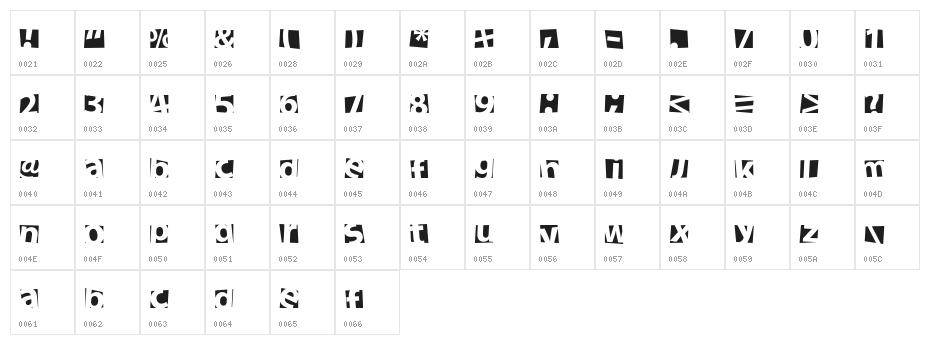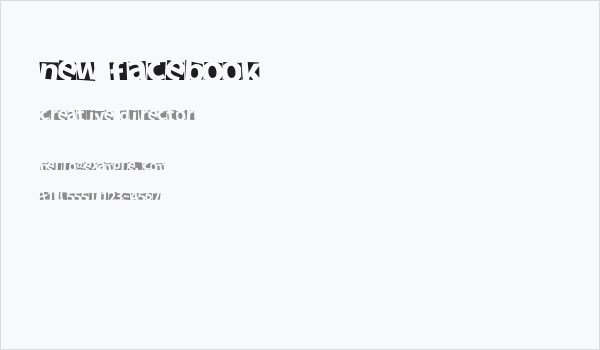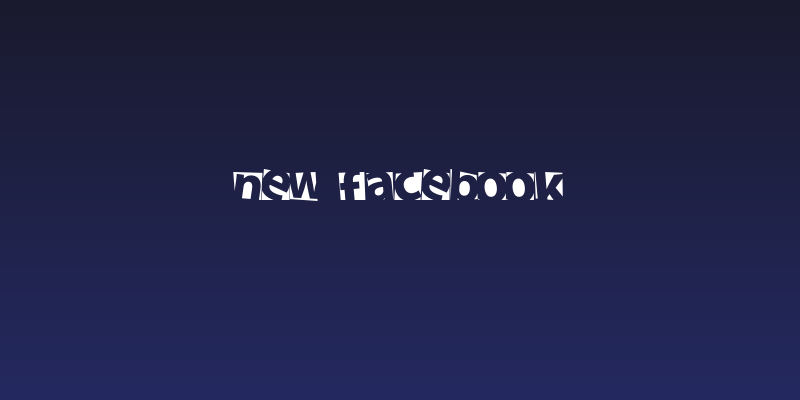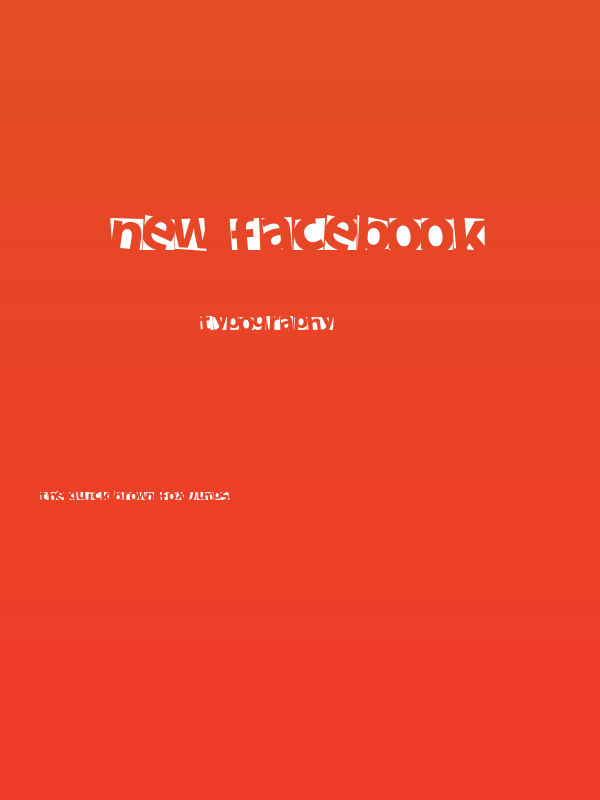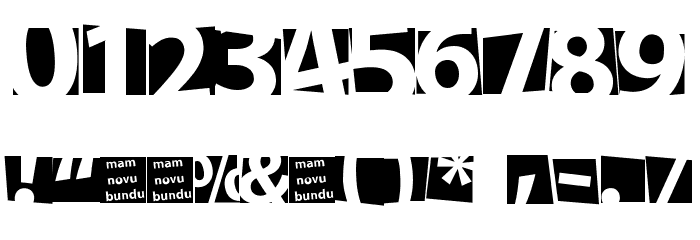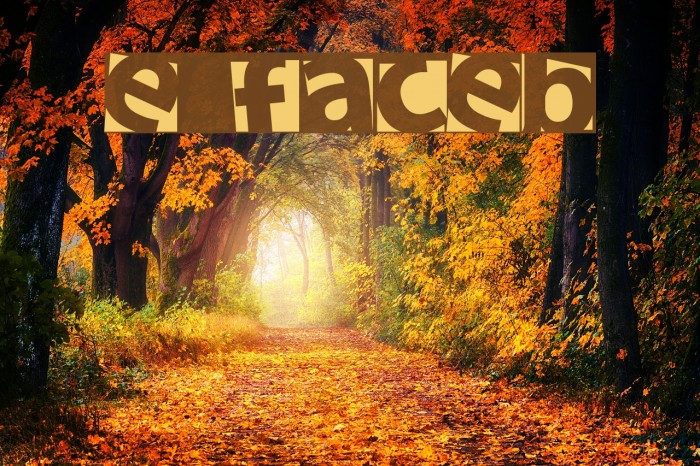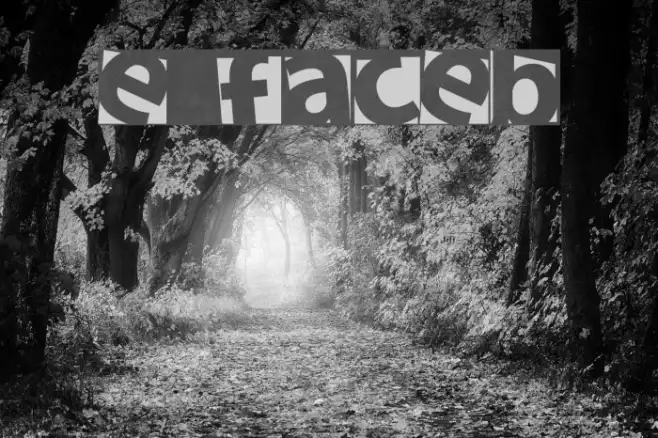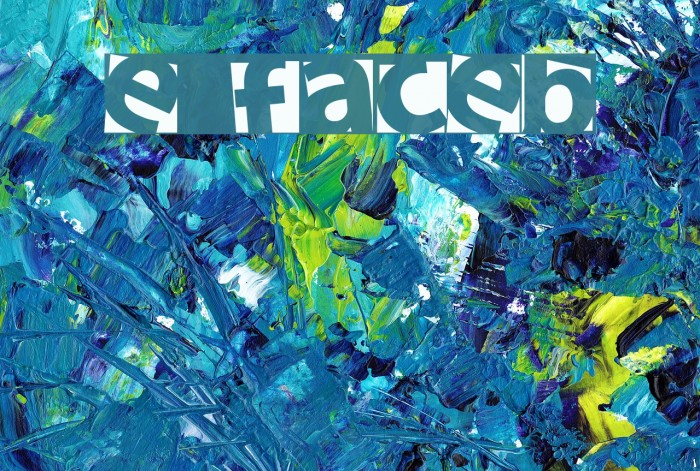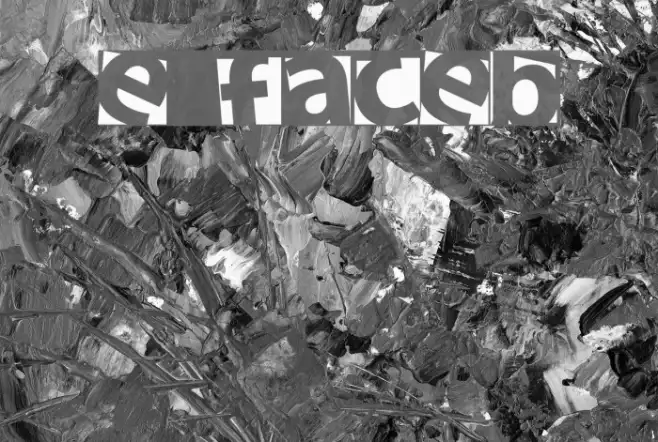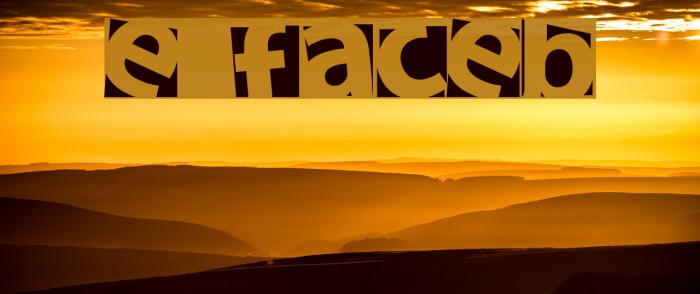
new facebook Font
new facebook Description
This font features a highly abstract and artistic design, characterized by its fragmented and distorted letterforms. Each character appears as if it has been sliced and rearranged, creating a dynamic and visually striking effect. The font maintains a consistent level of distortion across both uppercase and lowercase letters, as well as numbers and special characters. The unique style gives it a modern, avant-garde feel, making it suitable for creative and unconventional projects. The bold and irregular shapes draw attention, while the negative space within each character adds to the overall aesthetic, making it both challenging and intriguing to read.
| Overall Style | Modern, Avant-garde |
| Use Case | Headlines, Artistic projects, Branding |
| Proposed Projects | Ideal for artistic posters, album covers, experimental branding, and modern art installations. |